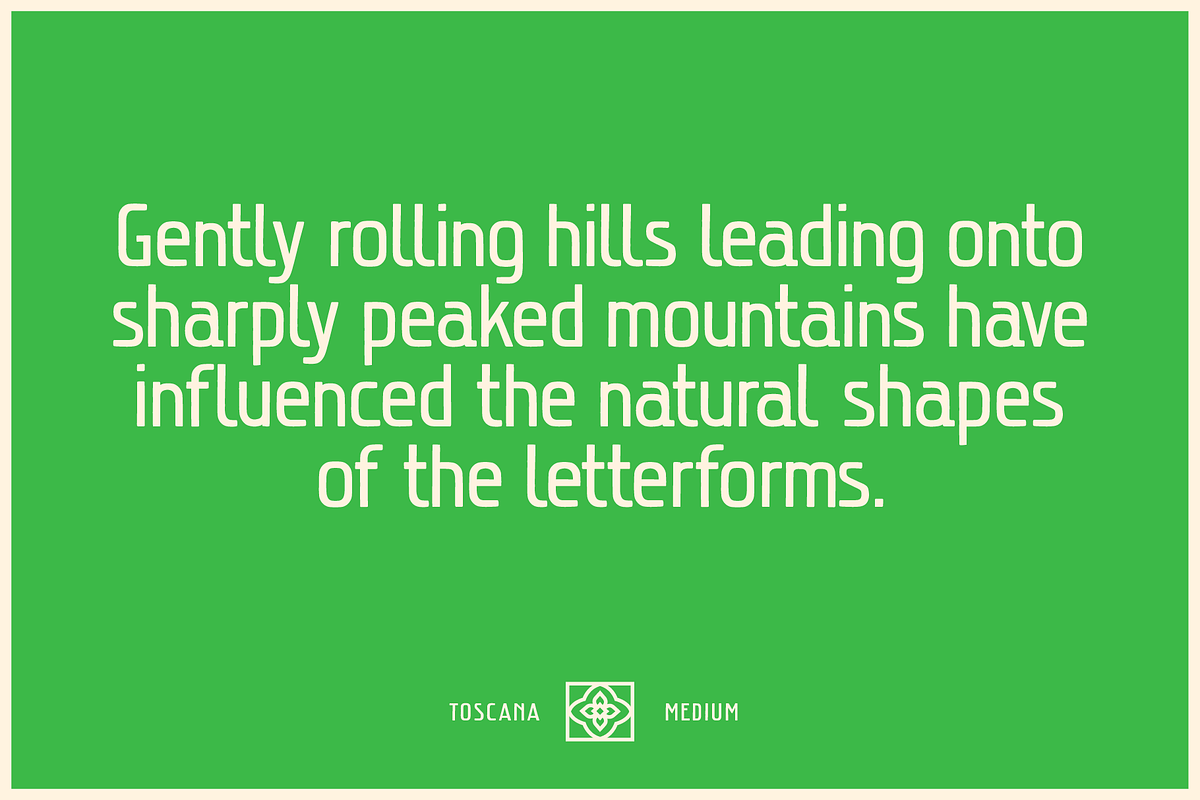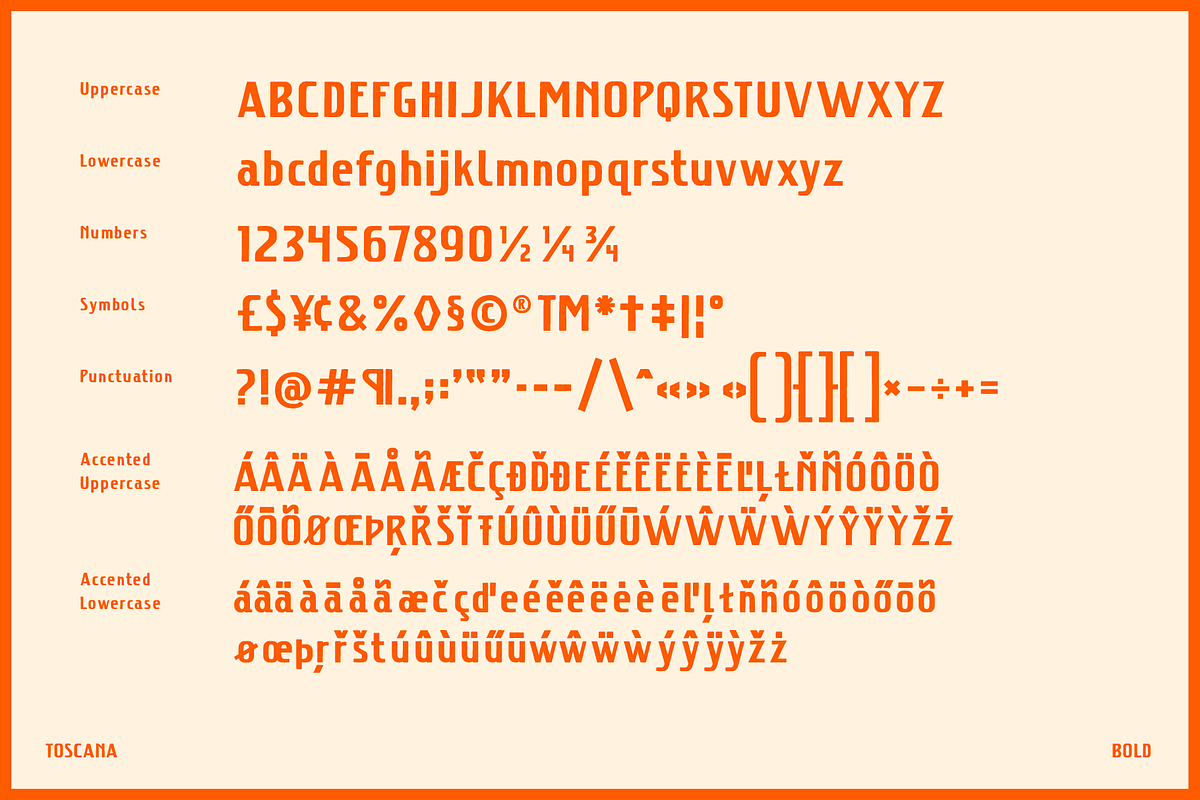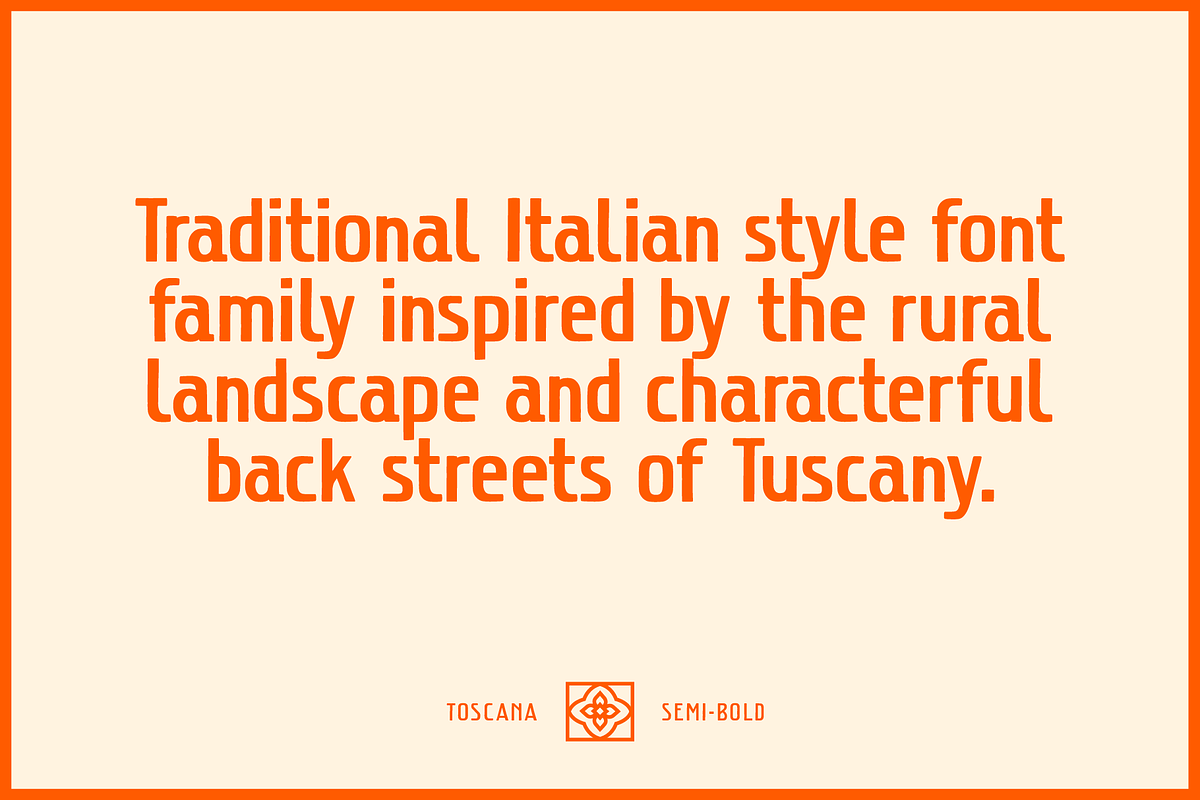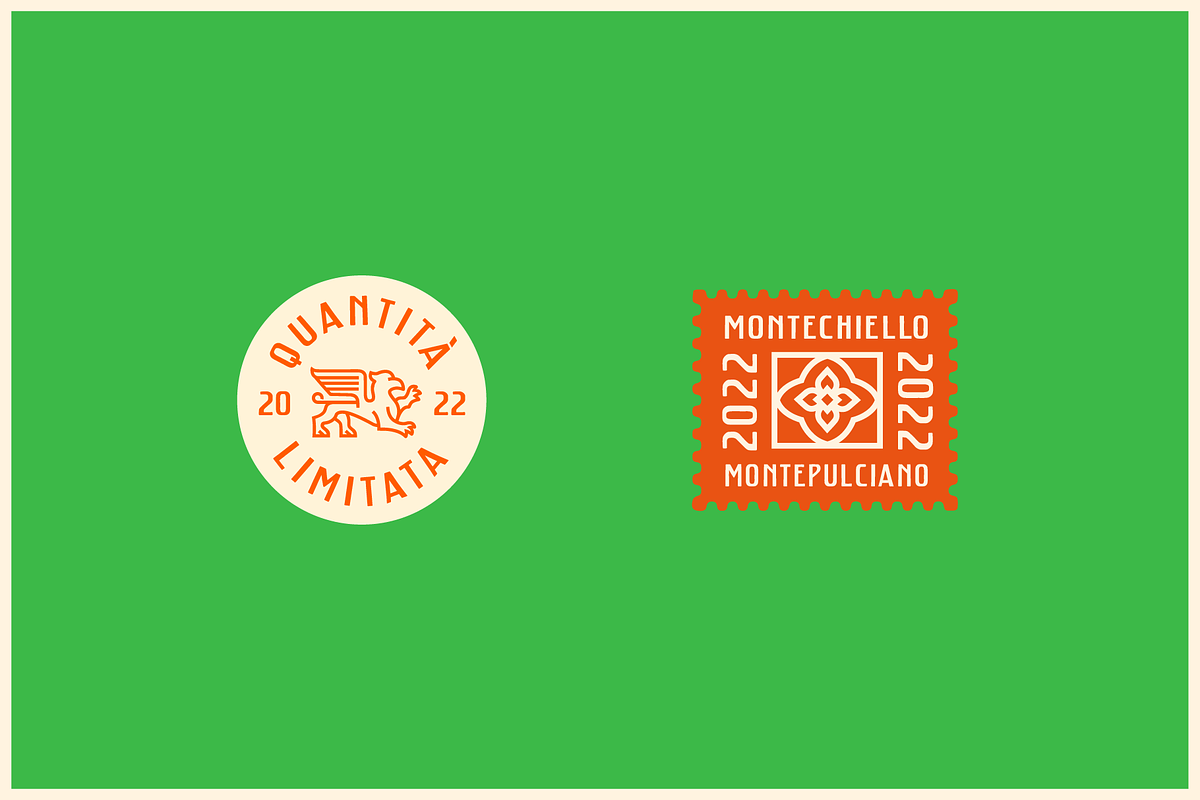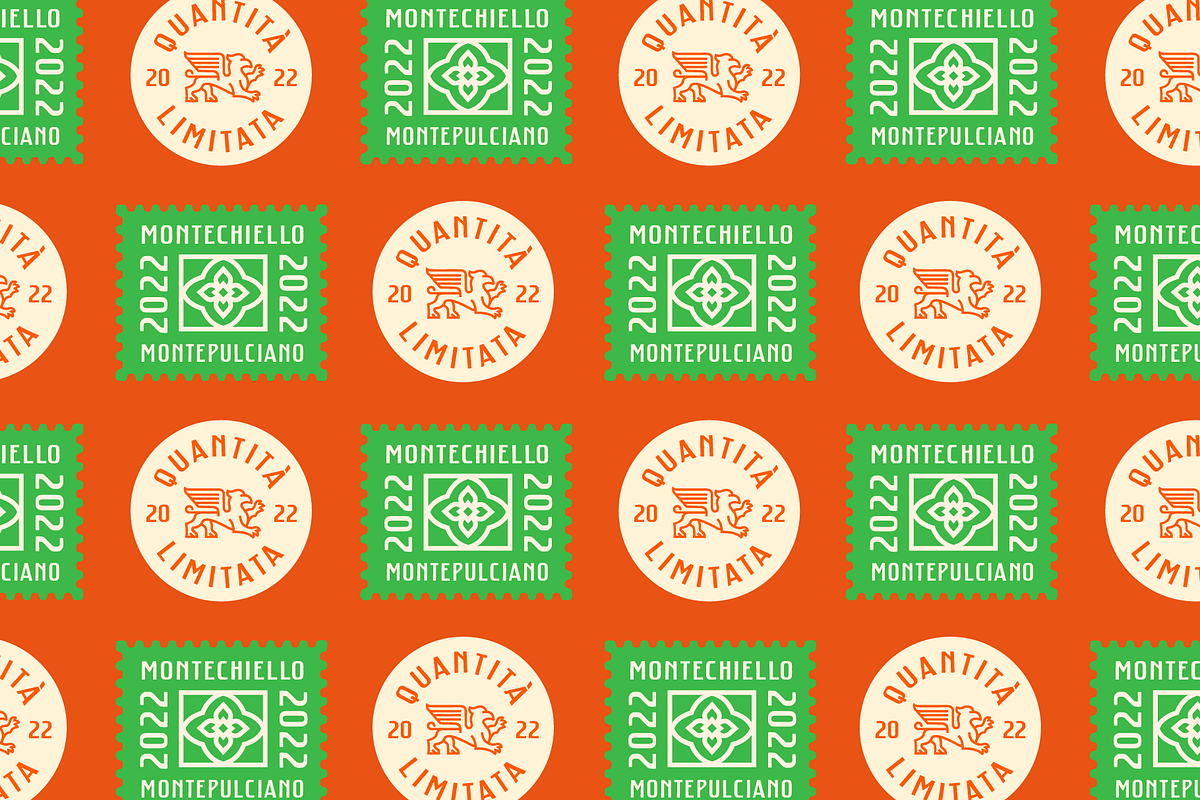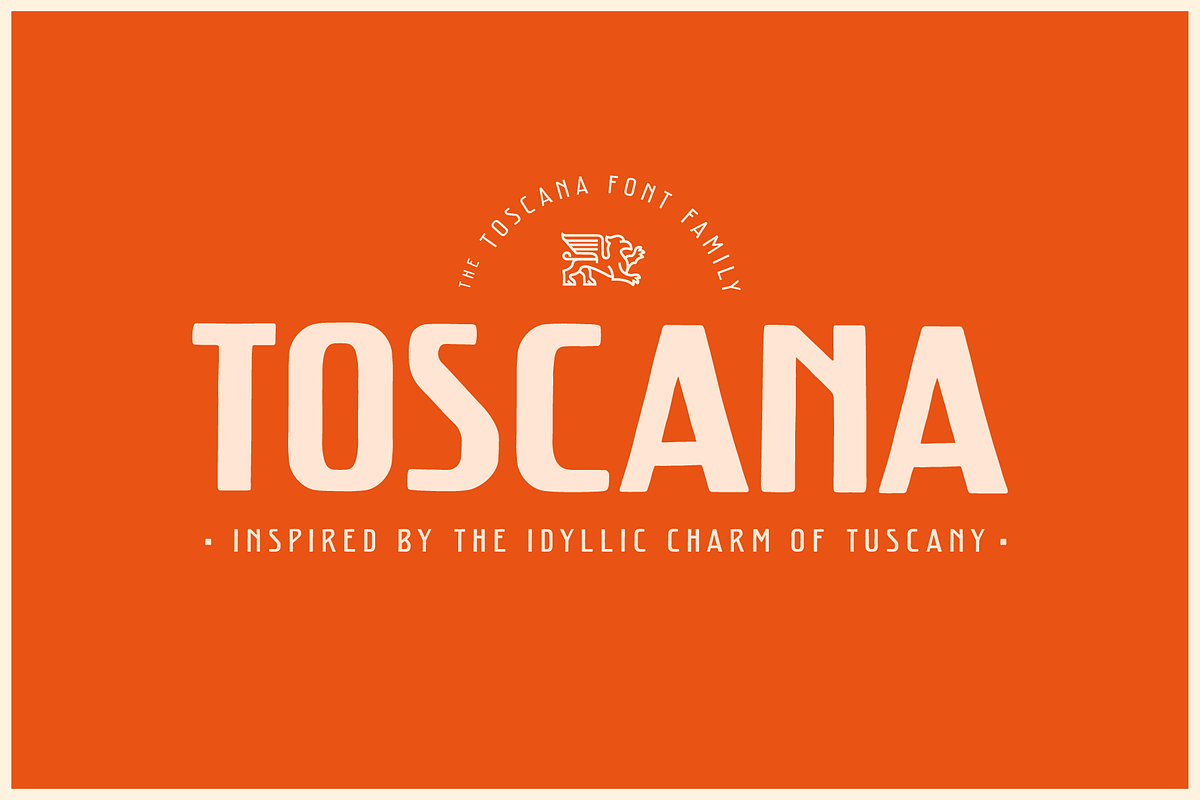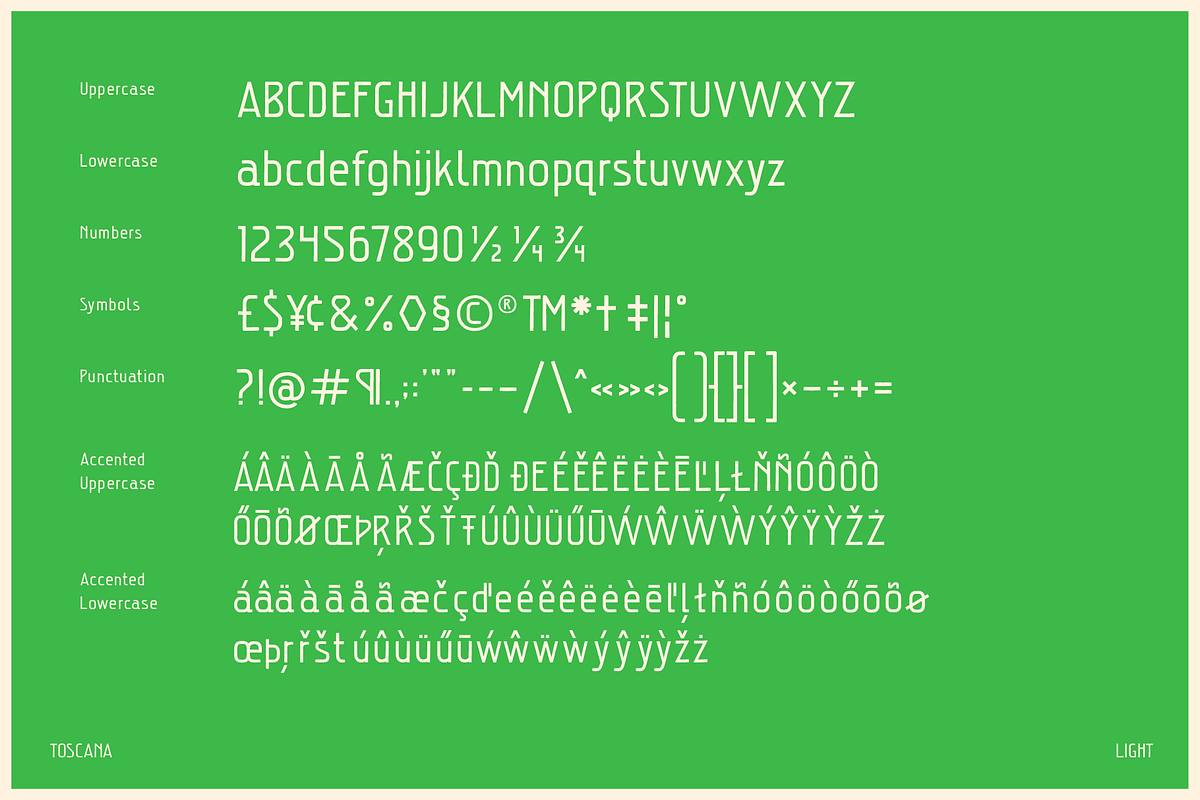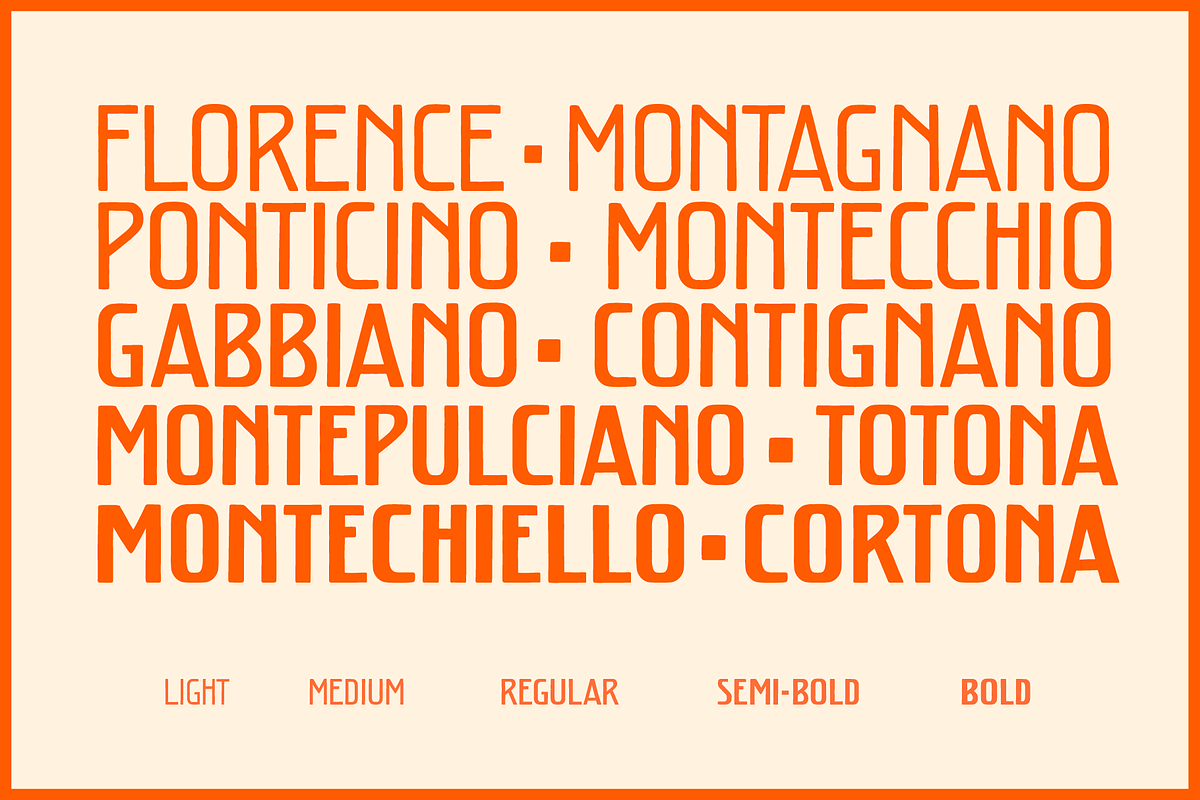
Toscana Font Family
Inspired by the idyllic charm of Tuscany. The gently rolling hills and characterful medieval back streets of have influenced the natural shapes of the letterforms.